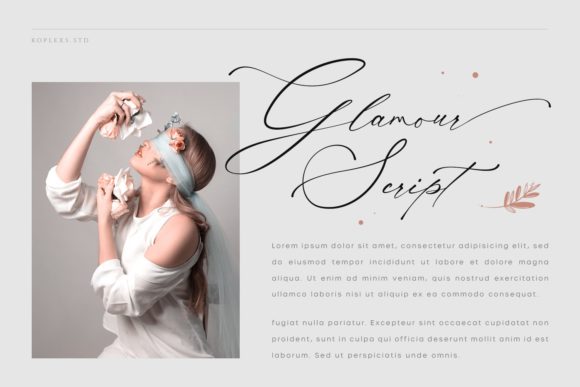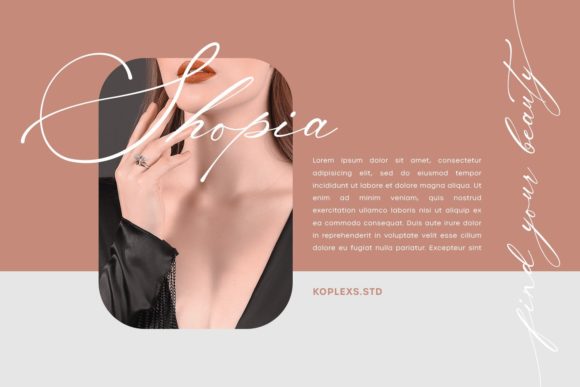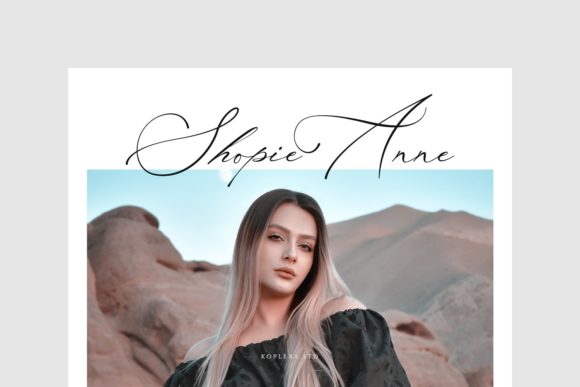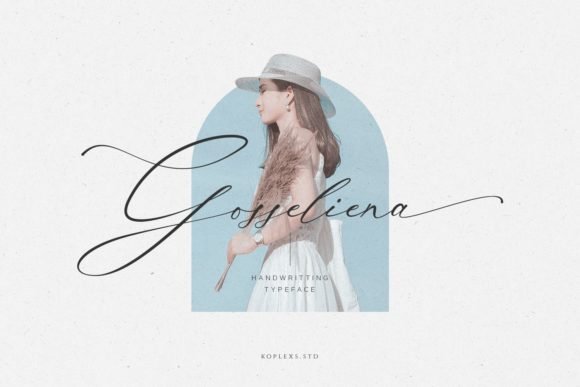
Introduction to Gosseliena Font
Gosseliena is a lovely script font featuring charming, playful characters that seem to dance along the baseline.
Add this font to your most creative ideas, and notice how it makes them stand out Gosseliena is PUA encoded which means you can access all of the glyphs and swashes with ease.